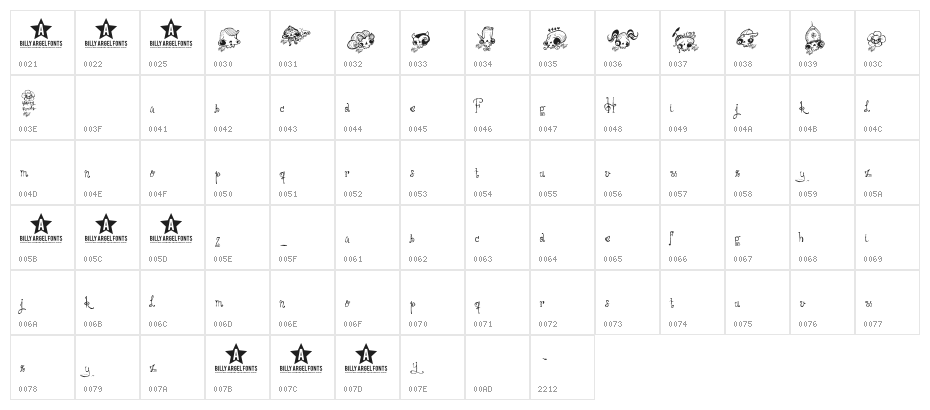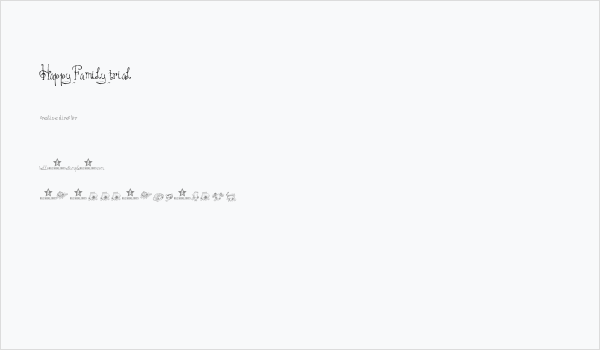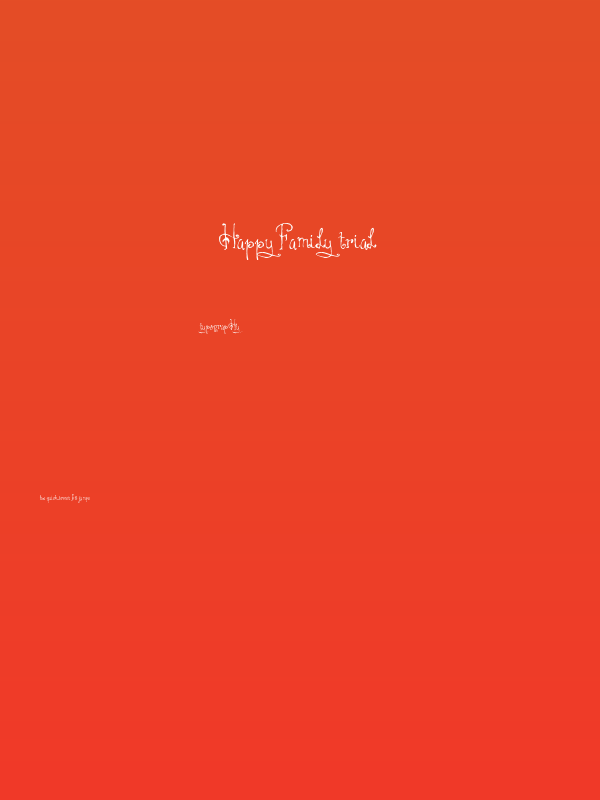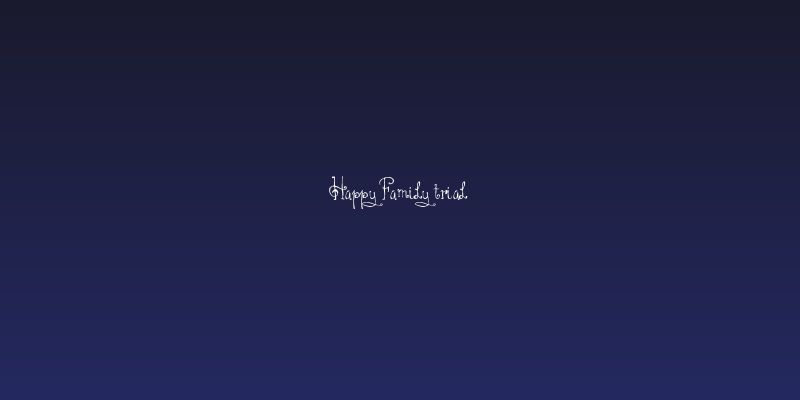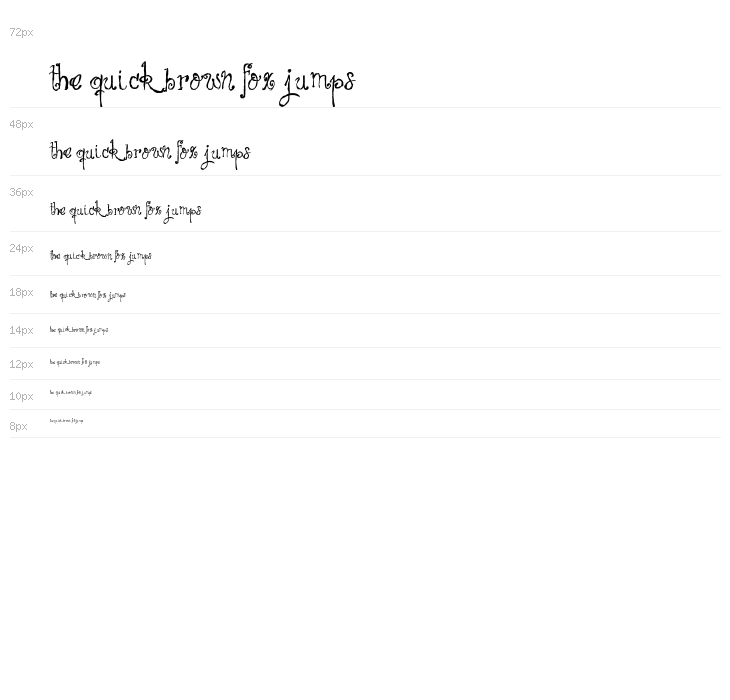
HAPPY FAMILY TRIAL Font
HAPPY FAMILY TRIAL Description
This font features an intricate and whimsical design, characterized by its ornate and decorative letterforms. Each character is embellished with flourishes and loops, giving it a playful yet elegant appearance. The font includes both uppercase and lowercase letters, each maintaining a consistent style that is both unique and visually engaging. The overall aesthetic is reminiscent of a fairy tale or fantasy theme, making it ideal for creative and artistic projects. The inclusion of decorative skull illustrations adds a quirky and edgy touch, further enhancing its appeal for unconventional and bold designs.
Use CaseHeadlines, Artistic projects, Branding
Proposed ProjectsIdeal for fantasy-themed invitations, artistic posters, unique branding, and creative book covers.